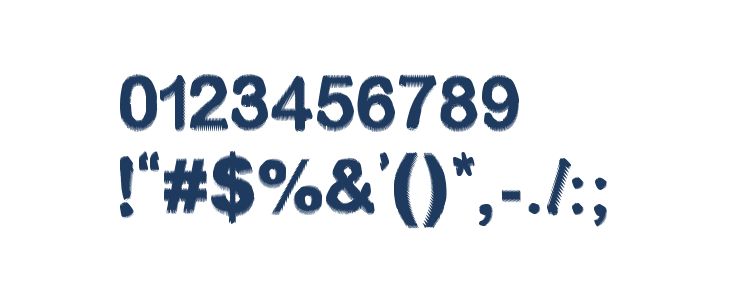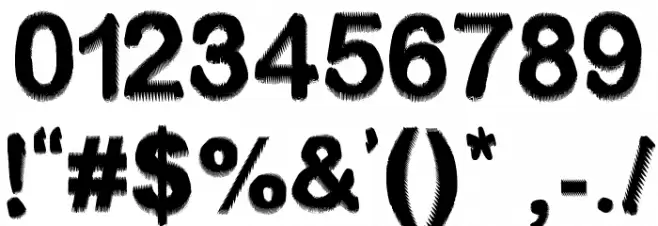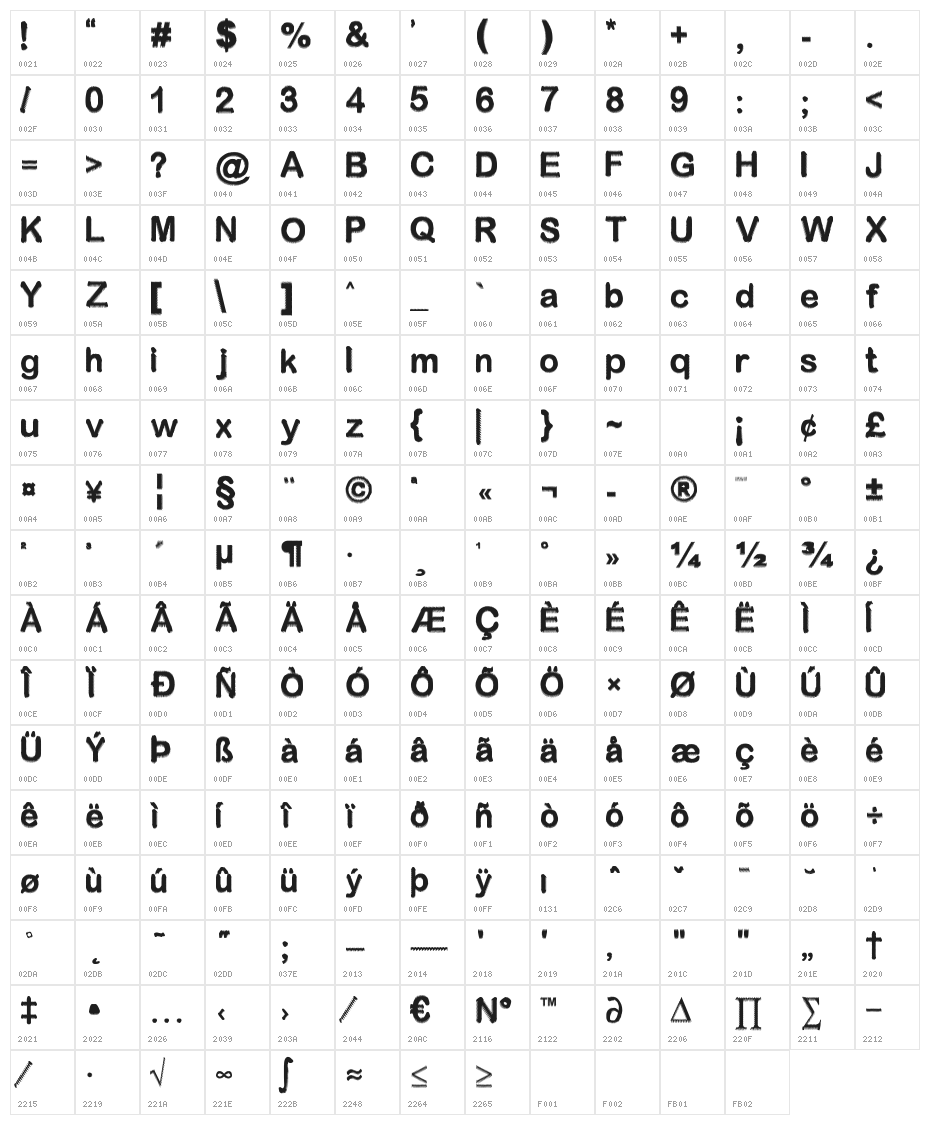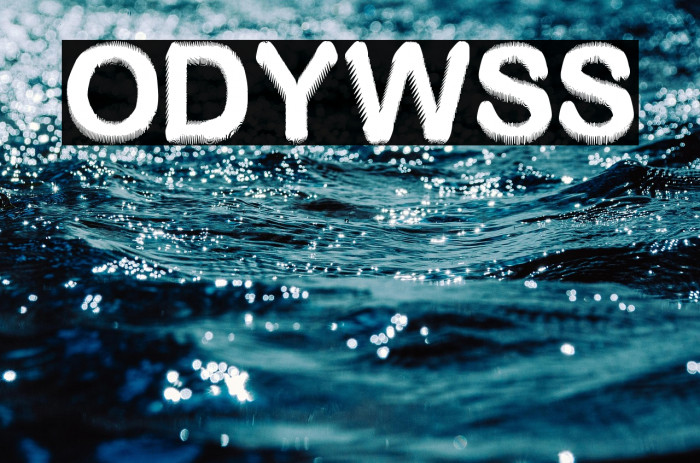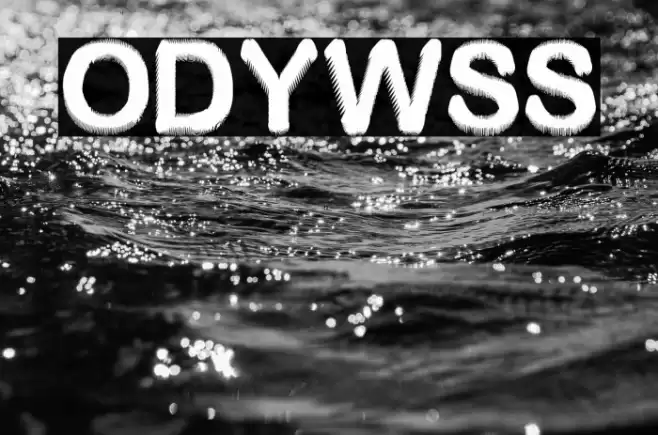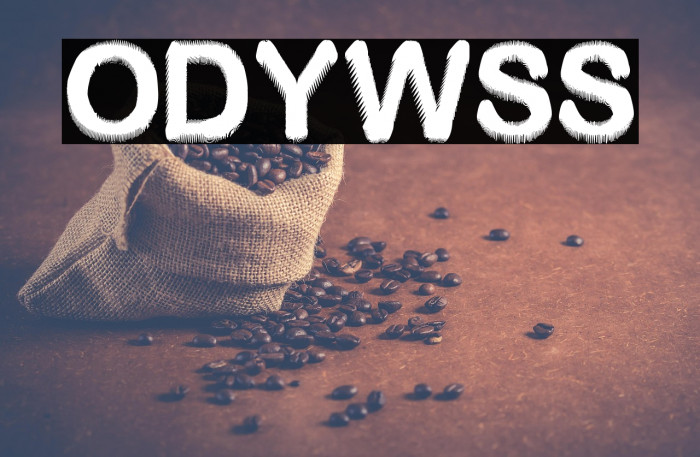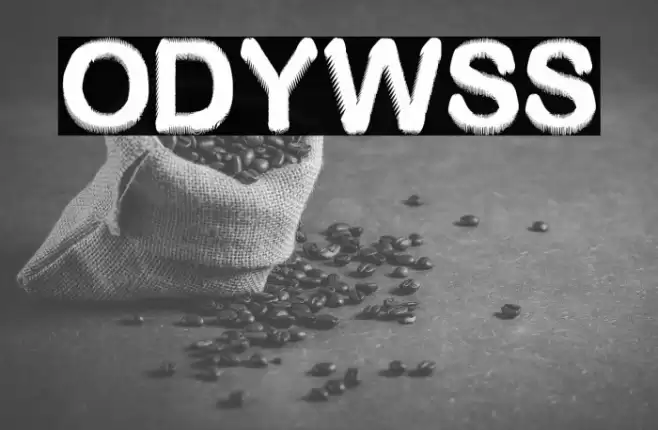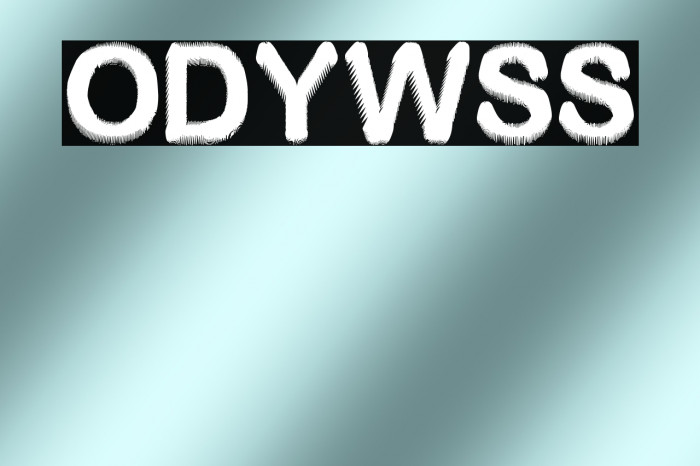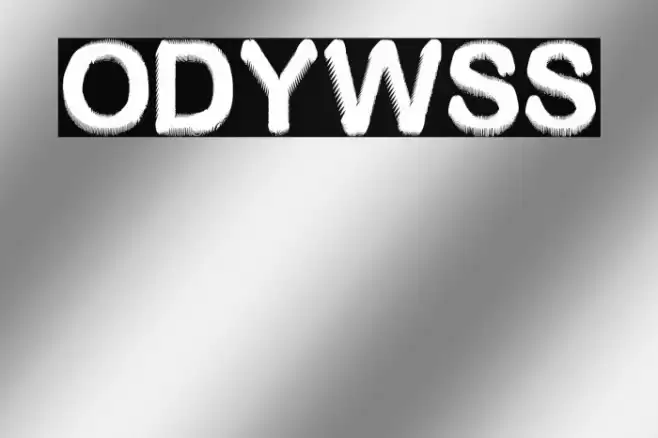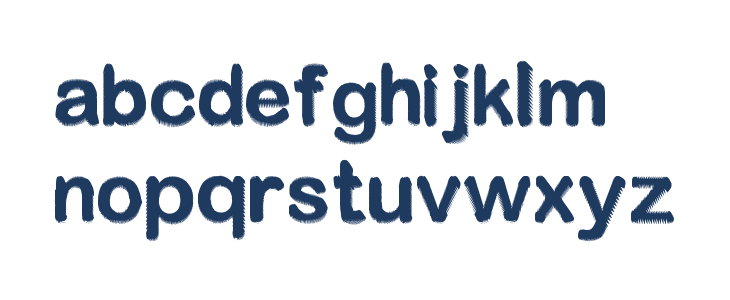
ODYWSS Font
ODYWSS Description
This font features a bold, textured style with a unique pattern that gives each character a dynamic, almost three-dimensional appearance. The letters are sans-serif, with clean lines and a modern aesthetic. The texture within each character adds depth and visual interest, making it stand out in any design. The uppercase and lowercase letters are consistent in style, maintaining the bold and textured look throughout. Numbers and special characters are also included, matching the overall design. This font is ideal for projects that require a strong visual impact.
| Proposed Projects | Ideal for posters, headlines, branding, and any design needing a striking visual element. |